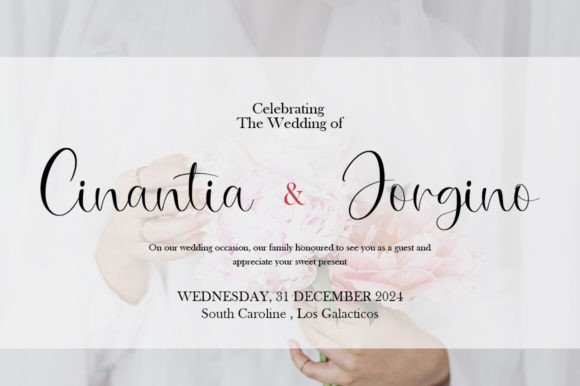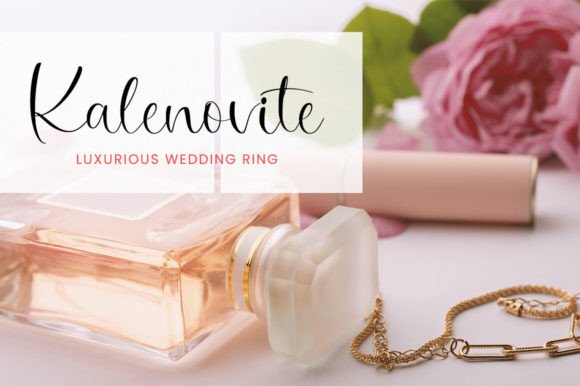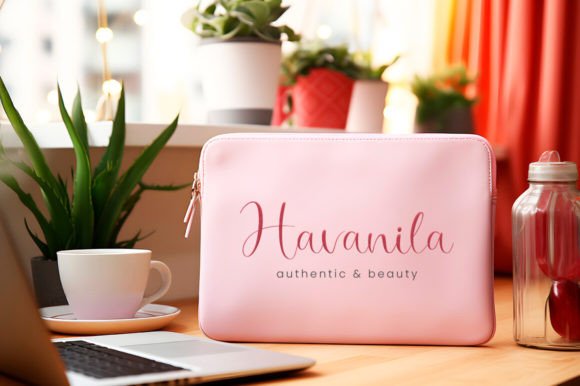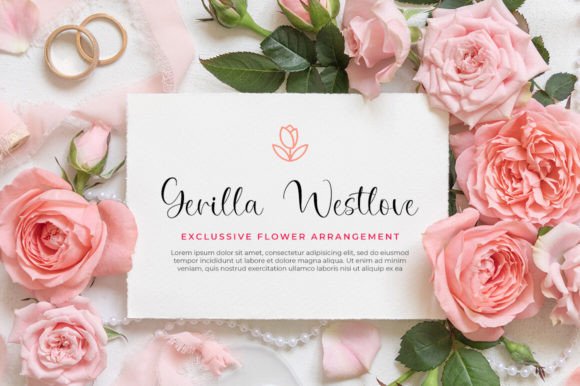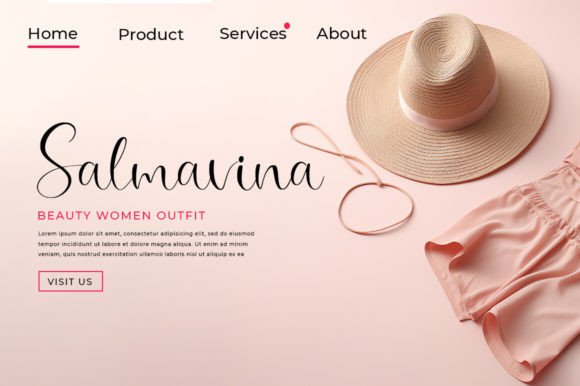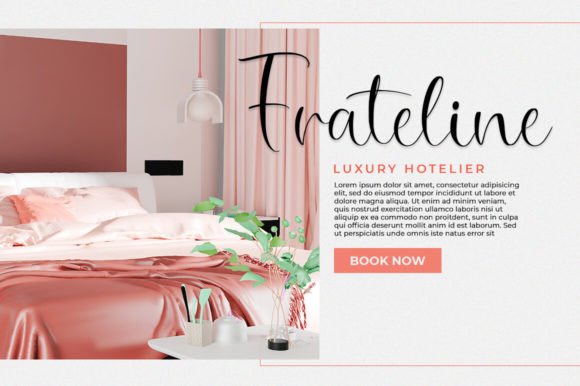
Unleash Your Creative Potential with the Timeless Cattelian Font
As designers, we’ve all had those moments when a single font can make or break a project. The blank page stares back at us, and suddenly, a flood of ideas rushes in. For me, it was a late-night brainstorming session, trying to perfect the logo for a new client. I was on the hunt for that perfect script font that would capture the essence of their brand. And then, I stumbled upon the Cattelian Script – a beautiful, elegant font that added a touch of sophistication to my design.
The Cattelian Font is more than just a stylish script font; it’s a tool that allows designers to bring their vision to life. With its classy and modern look, it’s perfect for a wide range of projects, from logos and branding to invitations and social media posts. Whether you’re a seasoned designer or just starting out, the Cattelian Font is an invaluable addition to your toolkit.
Cattelian Font Key Features
- Unique Characteristics: Elegant script, fluid connections, and a dynamic feel that captures the essence of cursive writing
Cattelian Font Review
As a designer, I was initially drawn to the Cattelian font for its unique blend of elegance and sophistication. ✨ The font’s refined curves and subtle flourishes evoke a sense of luxury and high-end design. ✨ I appreciate how the font can be used to create a strong visual impact, making it perfect for headings and titles.
However, there are some limitations to consider. ⚠️ The font can feel somewhat rigid and less versatile when used for body text, which may limit its usability in certain contexts. ⚠️ Additionally, the font’s ornate details can sometimes make it difficult to read, especially at smaller font sizes.
- Unique blend of elegance and sophistication
- Refined curves and subtle flourishes
- Perfect for headings and titles
- Suitable for high-end design projects
- Rigid and less versatile for body text
- Difficult to read at smaller font sizes
Overall, I think the Cattelian font is a solid choice for designers looking to add a touch of luxury to their projects. While it may not be the most versatile font, its unique aesthetic makes it a great option for specific design contexts.
Cattelian Font is ideal for creative projects, such as posters, brochures, and business cards. To get the most out of it, experiment with different font sizes and styles to create visual interest. You can also pair it with other fonts to create a unique and eye-catching design. Additionally, use Cattelian Font in headings and titles to draw attention and emphasize important information.